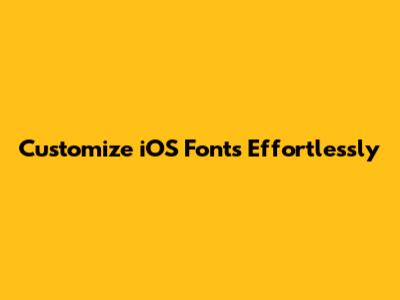
Customize IOS Fonts Effortlessly
Hey everyone! Today, we're diving deep into something super cool that can totally change how your iPhone or iPad looks and feels: iOS font customization. You know, sometimes the default fonts just don't cut it, right? Maybe you want something bolder, more elegant, or just plain different to match your vibe. Well, guess what? Apple gives you more control over your device's fonts than you might think! We're talking about going beyond just the basic text size adjustments and really making your iOS experience unique. This isn't just about making text bigger for easier reading, although that's a huge plus for many of us. It's about aesthetic appeal, personal expression, and even a bit of productivity. Imagine setting up different fonts for different apps, or choosing a font that just makes your daily notifications pop. It's all possible, guys, and it's easier than you might think to get started. We'll break down exactly how you can achieve this, from using built-in features to exploring third-party apps that unlock even more possibilities. So, whether you're a design enthusiast, someone who struggles with small text, or just looking for a fresh new look for your device, stick around. We're about to unlock the secrets to a more personalized and stylish iOS interface, one font at a time. Get ready to transform your digital world with just a few taps and tweaks!
Understanding iOS Font Settings
Alright, let's get started with the basics, guys. When we talk about iOS font settings, the first thing that often comes to mind is adjusting the text size. And you're totally right, that's a super important feature Apple provides! To access this, you'll want to head over to your Settings app, then tap on Display & Brightness, and finally, Text Size. Here, you'll see a slider that lets you increase or decrease the font size across most of your apps. This is fantastic for accessibility, making sure everyone can comfortably read what's on their screen. But here's the kicker: iOS also offers Bold Text. You can toggle this on right in the same menu. This simple change can make text much more readable, especially if you find the standard font a bit too light. Now, while these are the primary built-in options for changing the font's appearance, it's important to note that Apple doesn't allow you to pick any font you want for the entire system directly through the standard settings, like you might on a computer. Think of it like this: Apple has curated a set of system fonts that are optimized for iOS, ensuring consistency and performance. However, that doesn't mean you're stuck! We'll get into how you can introduce new fonts later, but for now, mastering these built-in controls is your first step to a more customized look. Understanding the difference between adjusting size/weight and choosing entirely new font families is key to navigating the world of iOS typography. So, play around with the Text Size and Bold Text options first. See how much of a difference it makes. It’s a subtle change, but it can significantly impact your reading experience and the overall aesthetic of your device. Plus, knowing where these settings are is crucial for any further customization we'll explore down the line. It's all about building that foundation, you know?
How to Change Font Size on iPhone and iPad
So, you want to make that text a little bigger, or maybe a little smaller? No sweat, guys! Changing the font size on your iPhone and iPad is one of the most straightforward customizations you can make, and it has a huge impact on usability and comfort. Let's walk through it step-by-step, shall we? First things first, unlock your device and find the Settings app. It's that gear icon you see on your home screen. Tap on it to open it up. Once you're in Settings, scroll down a bit until you find Display & Brightness. Give that a tap. In the Display & Brightness menu, you'll see a few options, but we're interested in Text Size. Go ahead and tap on that. Now, this is where the magic happens! You'll see a slider right at the top with a sample text showing how large or small the font will be. Simply drag the slider to the left to make the text smaller or to the right to make it larger. You'll see the text in the settings menu itself change in real-time, giving you a live preview. How cool is that? Keep adjusting until you find the perfect size that feels comfortable for your eyes. Remember, this change applies system-wide, meaning it will affect the font size in most of your apps, like Messages, Mail, Notes, and even Safari. It's a fantastic way to improve readability, especially if you have a slight vision impairment or are just tired of squinting at tiny text. Don't forget to check out the Dynamic Type feature, which many apps support. This allows apps to dynamically adjust their text size based on your system-wide setting. It's all about making your device work for you. So, go ahead, play with that slider! Find your sweet spot and enjoy a more comfortable and personalized reading experience on your iOS device. It’s a simple adjustment, but trust me, it makes a world of difference!
Enabling Bold Text for Better Readability
Now, let's talk about another simple yet incredibly effective way to enhance your iOS font experience: enabling bold text. Sometimes, it's not just about the size of the font, but its weight. Thicker, bolder letters can stand out much more, making text significantly easier to read, especially in less-than-ideal lighting conditions or for those who prefer a stronger visual hierarchy on their screen. This is where the Bold Text option comes in handy, and it's super easy to turn on. Just like changing the text size, you'll start by opening up your Settings app. Navigate back to Display & Brightness, and then tap on Text Size. Right below the slider for adjusting text size, you'll see a toggle switch labeled Bold Text. Simply tap on that toggle to turn it on. You'll notice that the text in the Settings app itself will immediately become bolder. This change, too, is system-wide, meaning it will affect the font throughout most of your iOS applications. Bold text can make a massive difference in clarity, helping to distinguish headings from body text and making crucial information pop. It's particularly useful if you find the standard font weight a bit too light or faint. Many users find that enabling bold text, often in conjunction with a slightly larger font size, creates the most comfortable and readable viewing experience. So, give it a shot! Toggle it on and see how it feels. You might find that this one simple setting dramatically improves your daily interaction with your iPhone or iPad. It’s all about making your device as user-friendly as possible, and bolding your text is a fantastic step in that direction. It’s a subtle tweak, but the benefits are definitely noticeable, guys!
Using Custom Fonts in Apps
Awesome! You've successfully installed some snazzy new fonts onto your iPhone or iPad. Now the big question is: using custom fonts in apps. How do you actually see and use these beautiful new typefaces in your daily work or creative projects? It's not quite like changing the system font across your entire device, but it's incredibly powerful for specific applications. The key thing to remember is that app developers need to build support for custom fonts into their applications. Not all apps will recognize the fonts you've installed. However, many popular productivity and creative apps do support this feature. We're talking about Apple's own iWork suite – Pages, Keynote, and Numbers are prime examples. If you're typing a document in Pages, you'll be able to select your newly installed fonts right from the font selection menu within the app. Similarly, apps like Microsoft Word, Excel, and PowerPoint on iOS often allow you to choose from your installed custom fonts. For graphic design or photo editing apps, such as Procreate or Canva, custom fonts are essential for creating visually appealing content. When you're in one of these compatible apps, look for the text or typography tool. Within that tool, there will usually be a font selection option. Tap on that, and you should see a list that includes both the standard iOS fonts and any custom fonts you've installed. Simply select the font you want to use, and it will be applied to your text. It's a fantastic way to brand your documents, make presentations more engaging, or simply add a personal flair to your notes. So, don't be shy! Explore the font options within your favorite apps and start experimenting with your new typographic toolkit. It’s all about making your content stand out!
Selecting Custom Fonts in Apple's iWork Apps
Let's dive specifically into Apple's own productivity powerhouse suite: Pages, Keynote, and Numbers. If you've installed custom fonts on your iOS device, you'll be thrilled to know that these apps offer excellent support for them. Using custom fonts in apps like these is where you really get to see the benefit of expanding your iOS font library. Here’s how you do it: First, open the app you want to use (let's say Pages). Create a new document or open an existing one. Once you're in the document editor, tap on the text you want to change, or add a new text box. You should see a toolbar appear, often at the top or bottom of the screen. Look for the Format button (it usually looks like a paintbrush or a stylized 'A'). Tap on that. In the Format inspector panel that pops up, you'll see various options for styling your text. Find the Font section. Tap on Font. This will bring up the font selection menu. Here, you'll see a list of fonts. At the top, you'll typically see categories like "System Fonts" or "All Fonts." Make sure you're looking at the full list. Your newly installed custom fonts should appear here, often alphabetized. Scroll through the list until you find the one you downloaded. Tap on your chosen font, and voilà! The text in your document will update to reflect the new typeface. It's that simple! The same process applies to Keynote for presentations and Numbers for spreadsheets. This feature is a game-changer for anyone creating professional-looking documents, engaging presentations, or well-organized spreadsheets on their iPad or iPhone. It allows for a level of branding and personalization that goes way beyond the default options. So, get creative with your documents and make them truly yours using your favorite custom fonts!
Tips for Managing Your Font Library
As you start downloading and installing more and more fonts, your iOS font library can quickly become a bit… well, much. To keep things organized and ensure you're always using the right typeface, having a good font management strategy is key. Here are a few tips to help you manage your growing collection: Firstly, be selective. You don't necessarily need hundreds of fonts. Focus on quality over quantity. Choose fonts that you genuinely love and that serve a purpose – maybe a bold display font for headings, a highly readable serif for body text, or a fun script for accents. Secondly, utilize font manager apps effectively. Many font manager apps allow you to categorize your fonts, mark favorites, or even disable fonts you're not currently using. Take advantage of these organizational features. If an app allows you to group fonts by style (e.g., "Serifs," "Sans-Serifs," "Scripts," "Display") or by project, do it! This makes finding the right font so much faster. Thirdly, keep track of licenses. If you're using fonts for commercial projects, always be aware of the font's licensing agreement. Some free fonts are only free for personal use. Font manager apps might not always provide this information, so it's often best to check the original source of the font. Fourthly, uninstall fonts you no longer use. If you find yourself never using a particular font, or if you've found a better alternative, consider removing it. Go to Settings > General > Fonts to see installed fonts, and you can often remove them from there, or through the font manager app you used to install it. This helps keep your font lists cleaner and reduces potential clutter. Finally, consider the app compatibility. Remember that not all apps support all custom fonts. Keep a mental note or even a quick list of which apps work best with which of your favorite fonts. By following these tips, you can maintain a manageable and useful font library, making your iOS font customization journey both enjoyable and efficient. Happy organizing, guys!
Accessibility Considerations for Fonts
Finally, but perhaps most importantly, we absolutely must talk about accessibility considerations for fonts. Making your device and your content accessible to everyone is crucial, and typography plays a massive role in this. When we discuss iOS font customization, we're not just talking about making things look pretty; we're talking about making them usable for people with a wide range of abilities and needs. The first and most obvious consideration is text size. As we covered earlier, iOS's Dynamic Type and the Text Size setting in Display & Brightness are lifesavers. Ensure you're using these features to make text large enough for people with visual impairments to read comfortably. Avoid setting text size to the absolute minimum. The second key factor is font weight and style. Extremely thin or overly decorative fonts can be very difficult for many people to read. Opting for clear, legible fonts with a standard or medium weight for body text is always a safe bet. Enabling Bold Text is another excellent accessibility feature that significantly improves contrast and legibility. Thirdly, color contrast is vital. Ensure there's sufficient contrast between the text color and the background color. Poor contrast can make text virtually unreadable for individuals with low vision or color blindness. iOS has built-in contrast ratios that developers adhere to, but when you're creating your own content in apps like Pages, always check that your text pops against its background. Fourth, avoiding justified text for body copy is generally recommended. Justified text can create uneven spacing between words, leading to